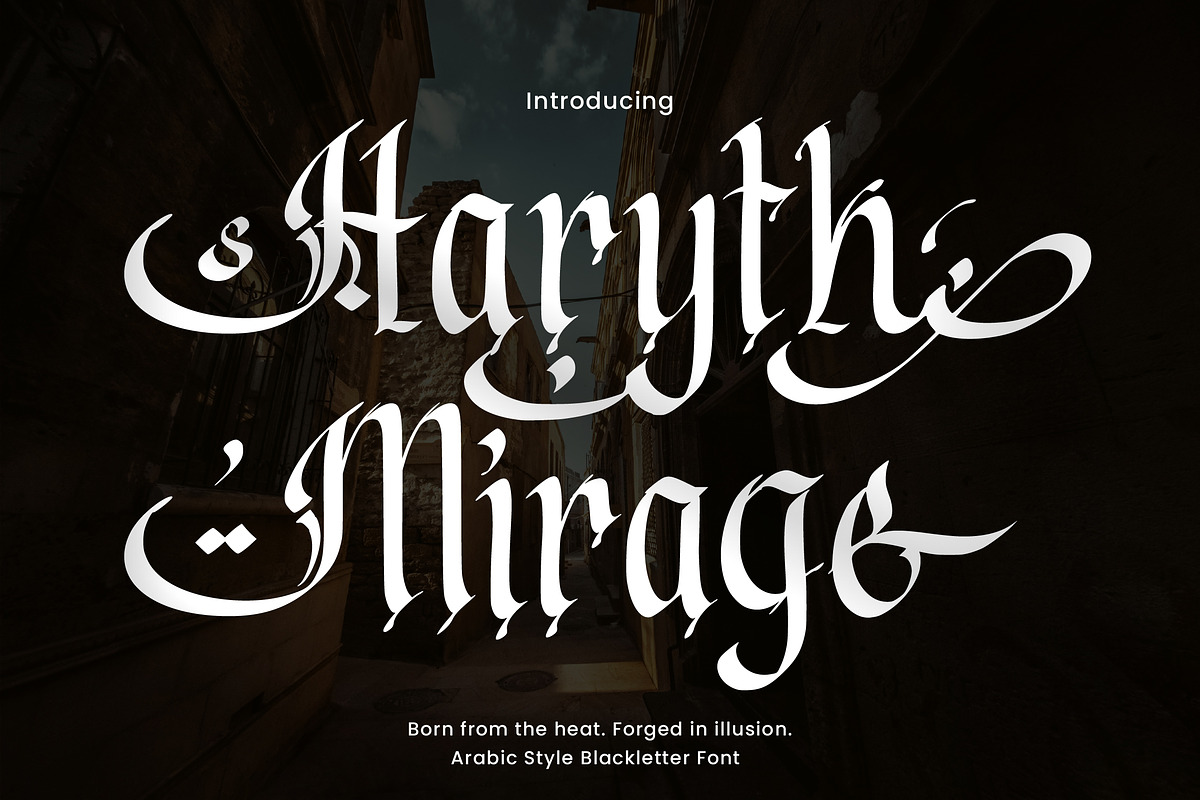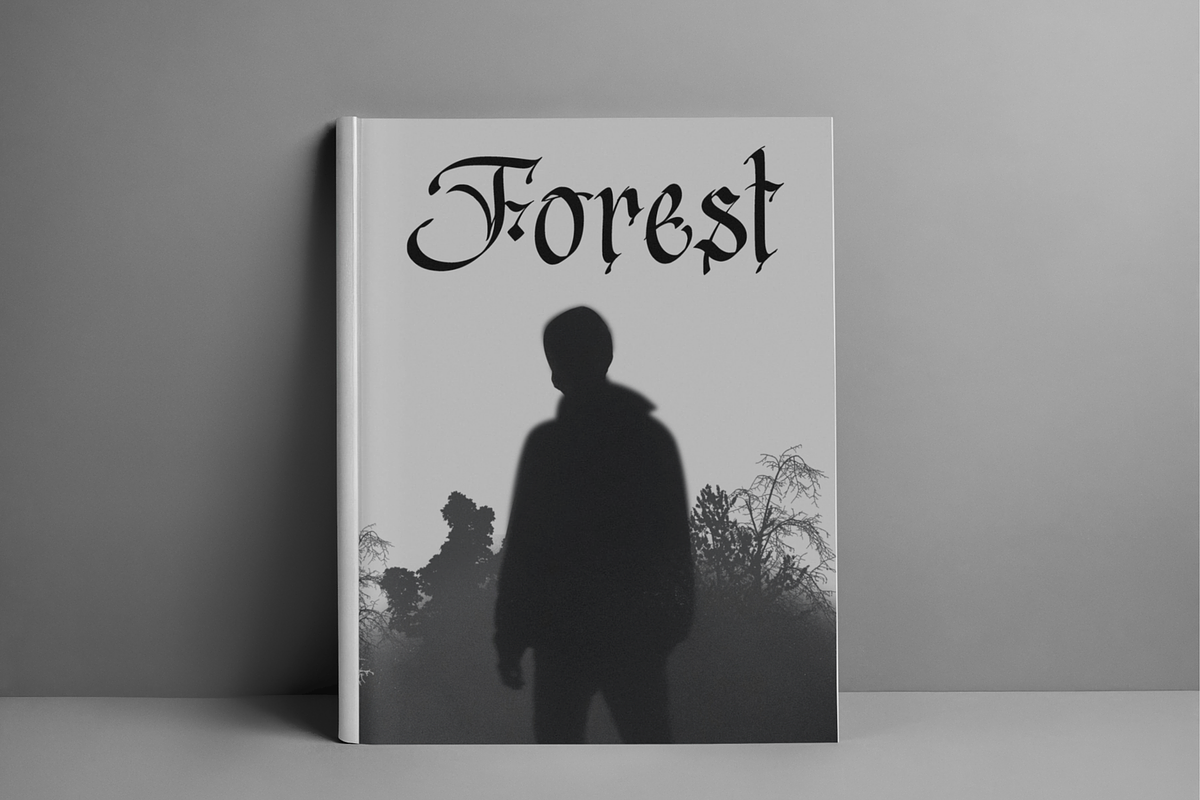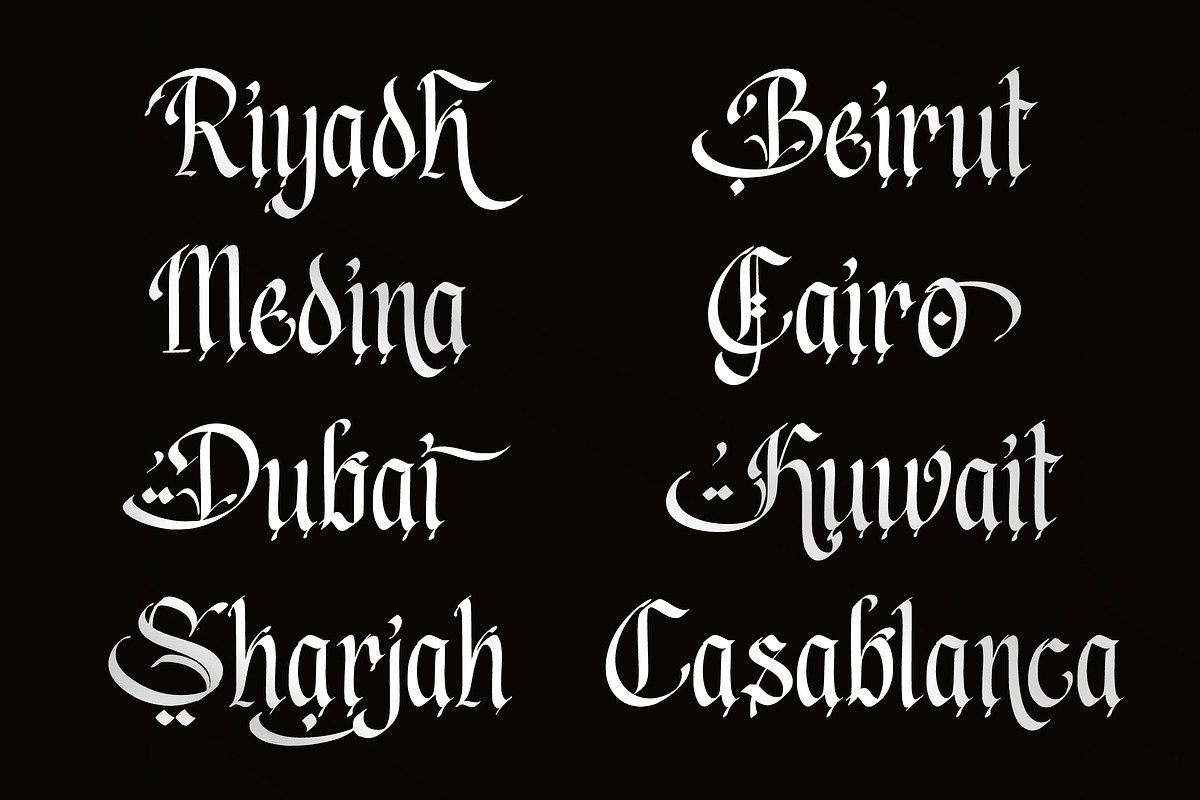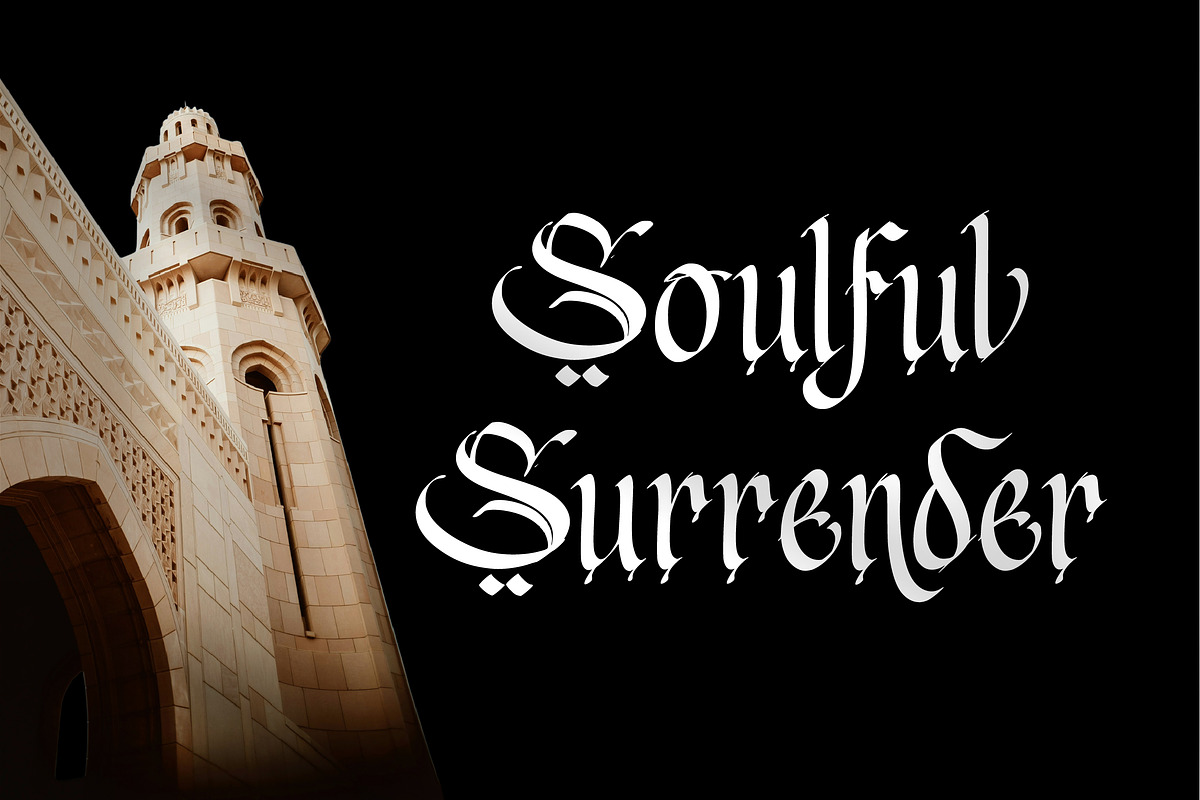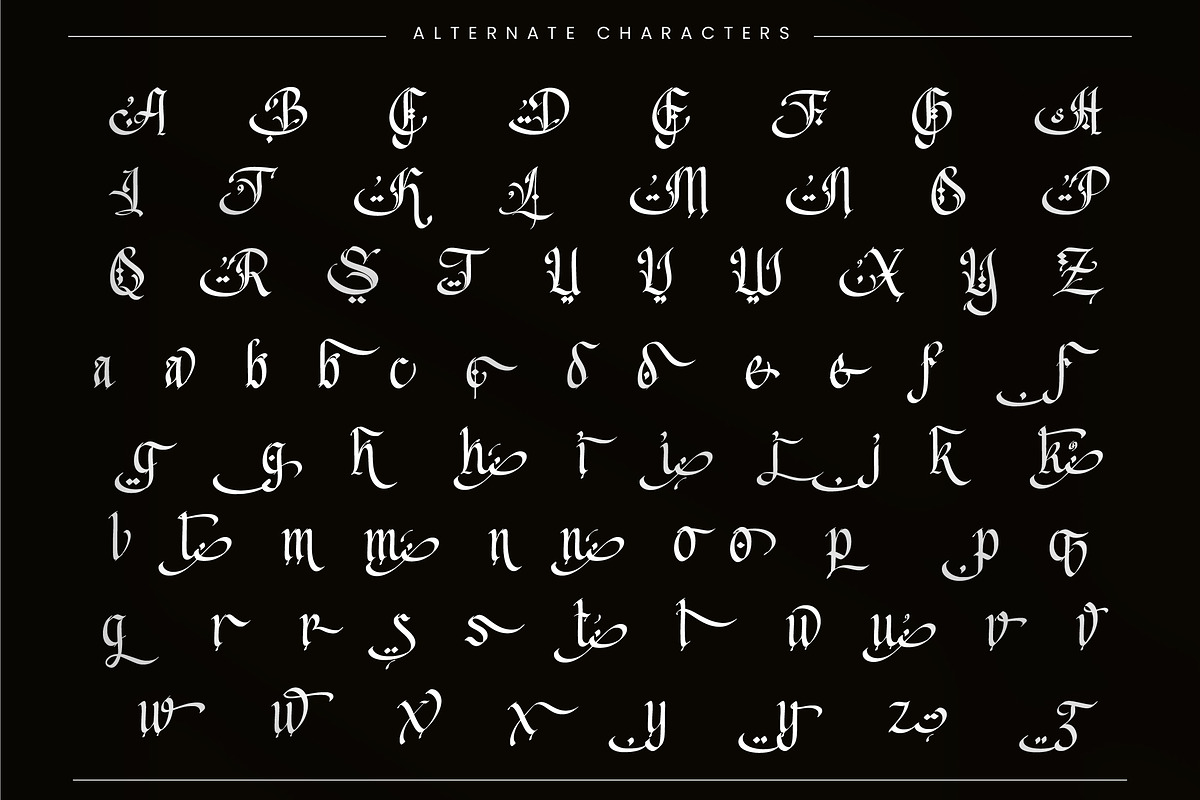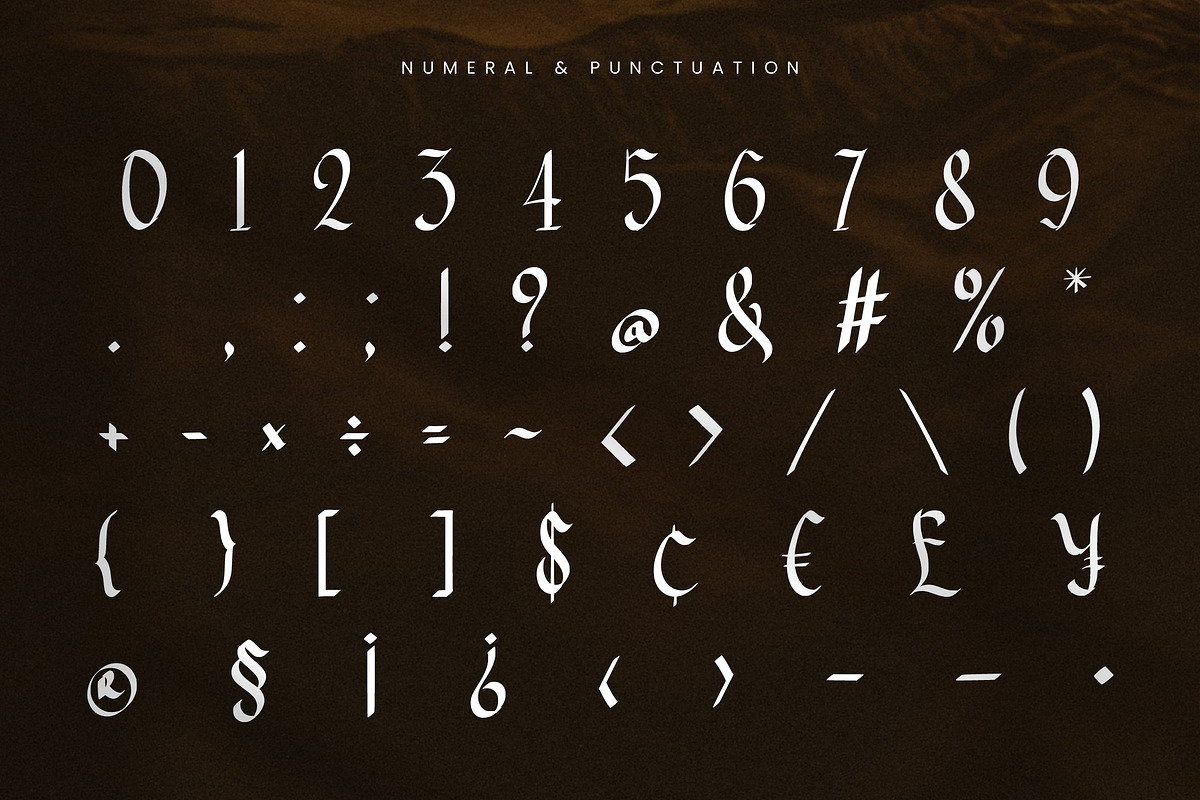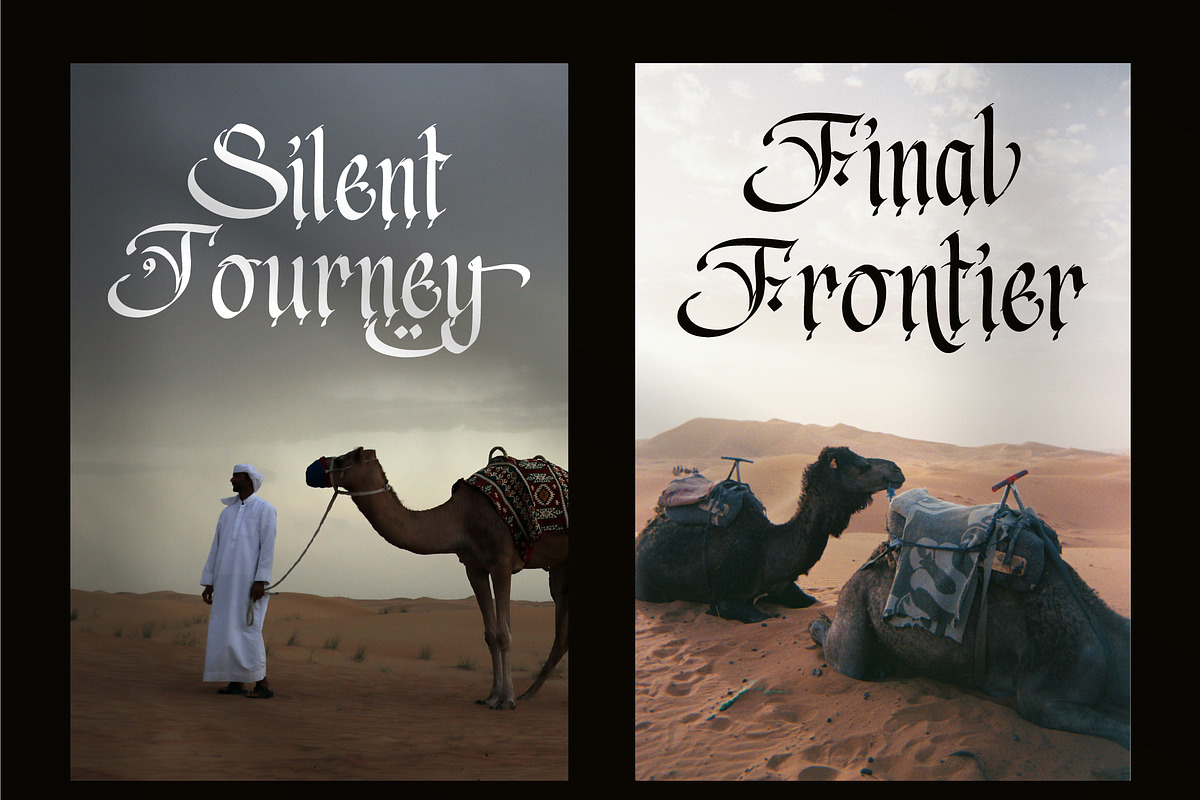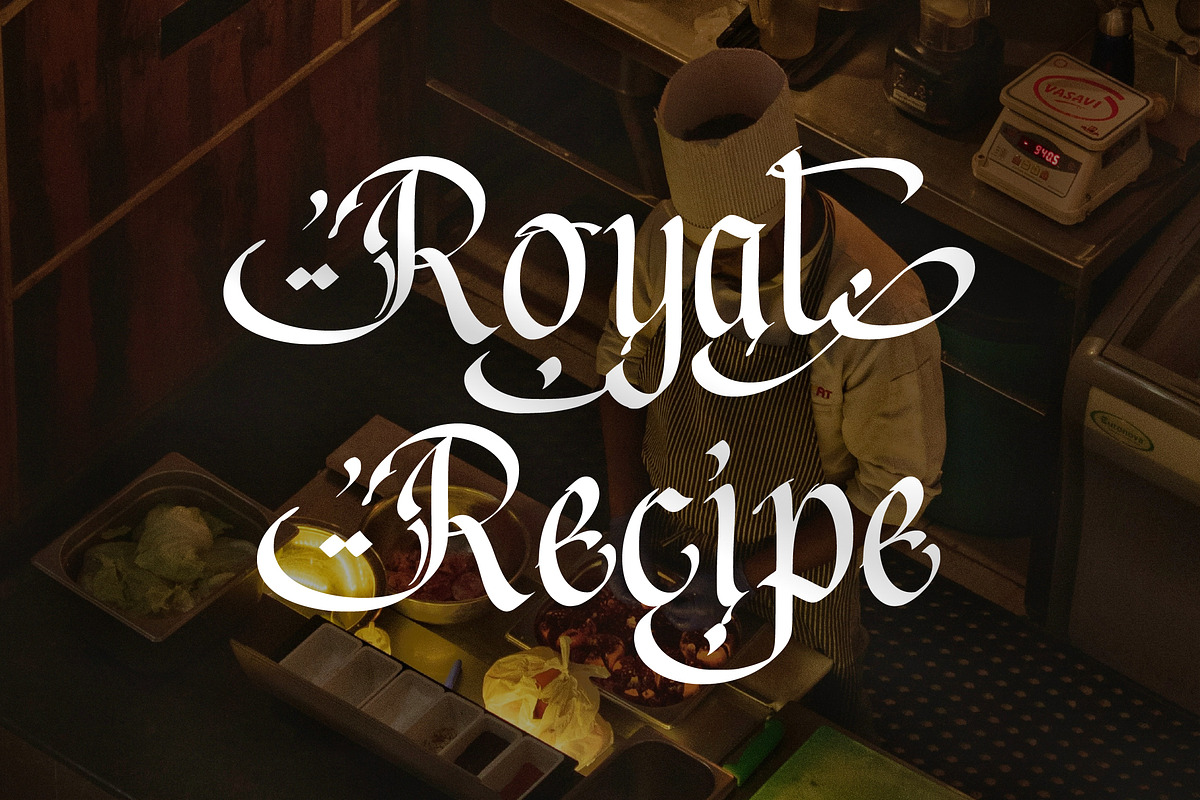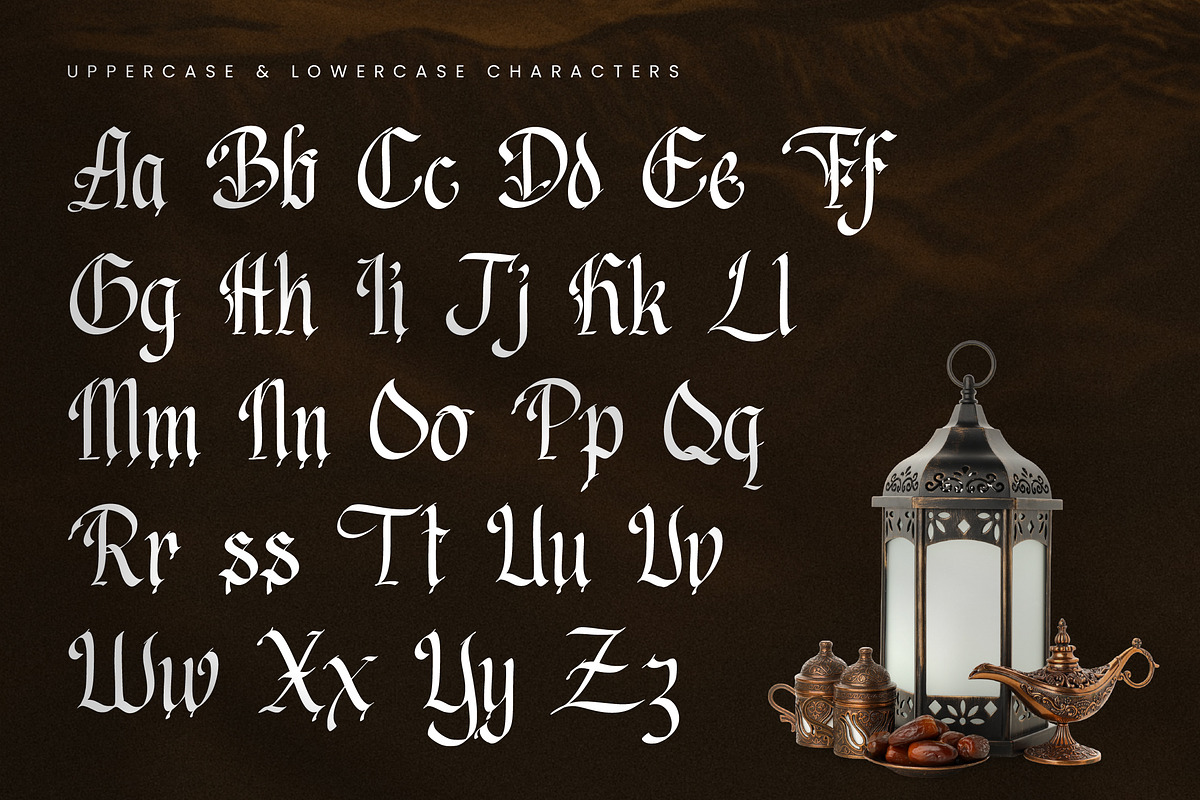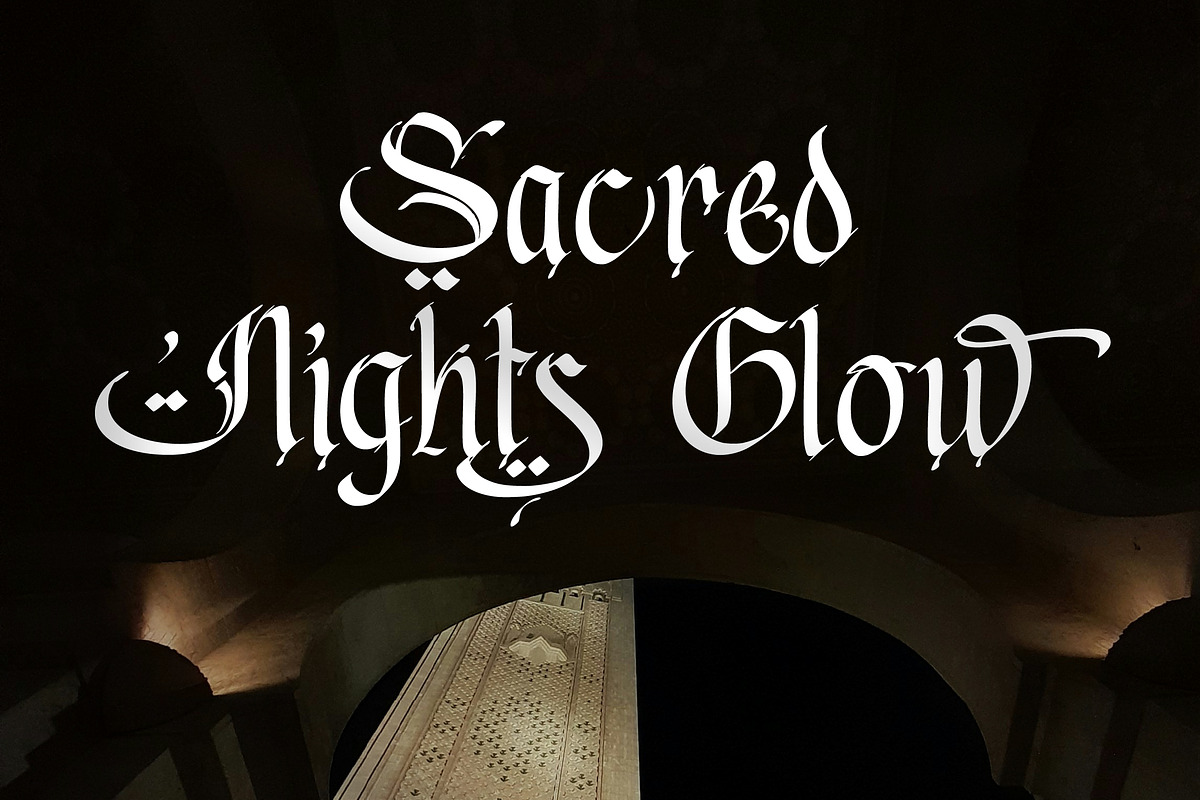
Haryth Mirage - Blackletter Arabic
Born from the heat. Forged in illusion.
Across the endless dunes, beneath a blazing desert sun, a name was born — Haryth Mirage.
“Haryth” is inspired by an ancient masculine name symbolizing strength, resilience, and the spirit of a warrior who thrives under harsh skies. The altered spelling gives it a sharper edge — more enigmatic, more legendary, more timeless.
“Mirage” represents the desert’s greatest illusion — a vision shimmering on the horizon. It appears real, yet remains untouchable. A symbol of presence without capture. Power without noise.
Together, the name tells the story of a lone desert figure — a wanderer moving through golden sands, cloak carried by hot winds, steel reflecting the midnight moon. He does not demand attention. His presence alone commands it.
Haryth Mirage is not just a name. It is a legend shaped by heat, dust, and illusion.
This typeface carries that spirit — bold blackletter structures infused with subtle Arabic character. Sharp strokes, dramatic curves, and a powerful silhouette make it perfect for cinematic posters, game branding, metal aesthetics, and statement logos that refuse to be ignored.
Best for:
- Branding & Logo Design
- Islamic & Ramadan Projects
- Posters & Headlines
- Quotes & Typography Art
- Editorial & Social Media Design
- Regular & Italic Styles